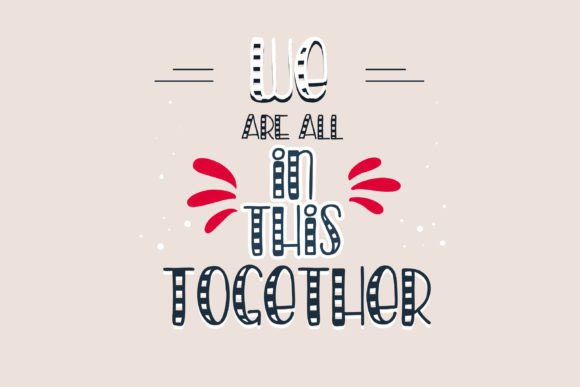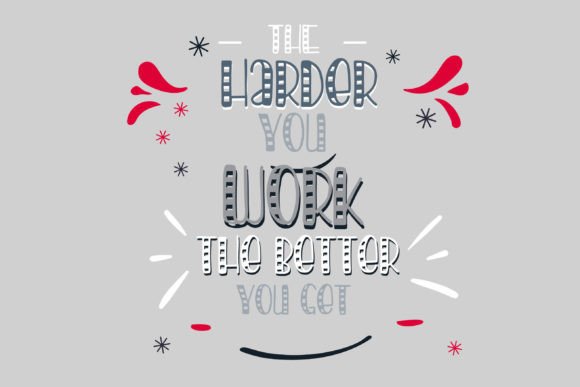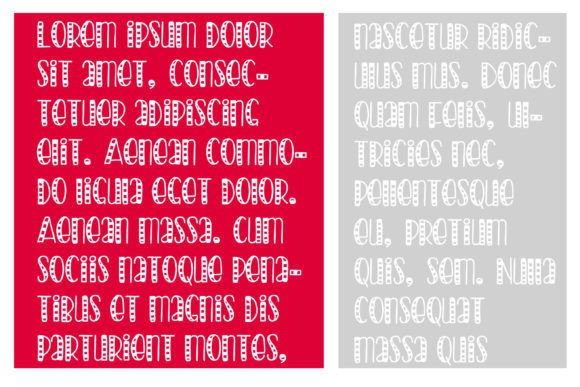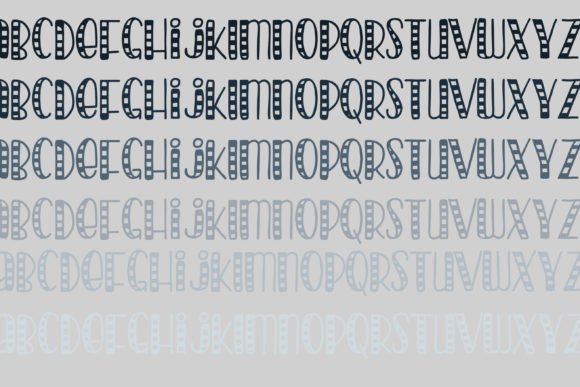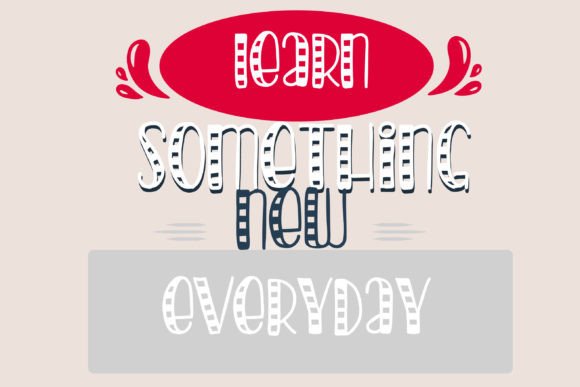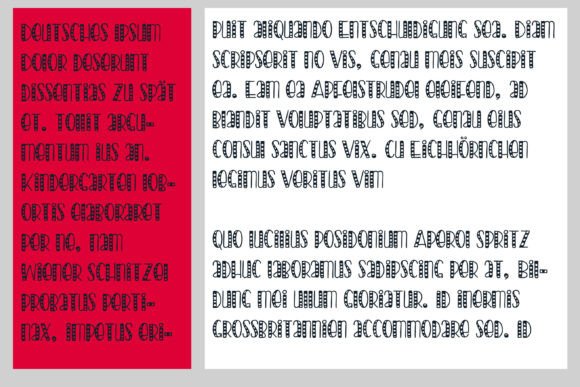
Introduction to Peppermint Preserves Font
Peppermint Preserves is a sweet and “minty” hand-written decorative font that is filled with candy stripes.
Add some festive flair to your designs with this adorable font and make them outstanding .
Peppermint Preserves Font offers exceptional quality and versatility, making it a valuable addition to your design toolkit. Whether you’re creating for personal projects or commercial use, Peppermint Preserves Font delivers professional results.